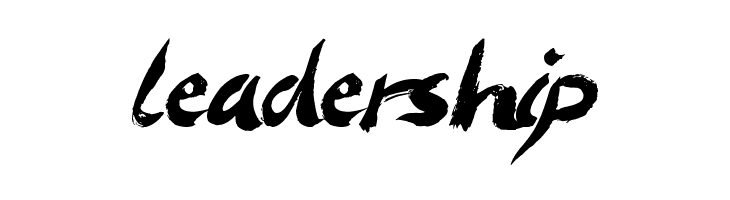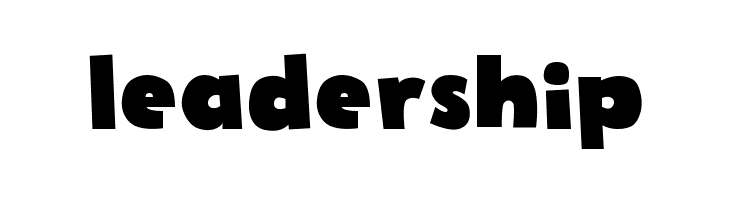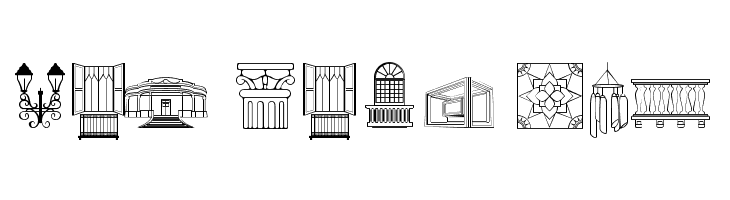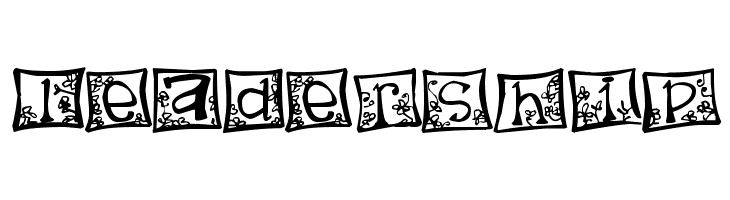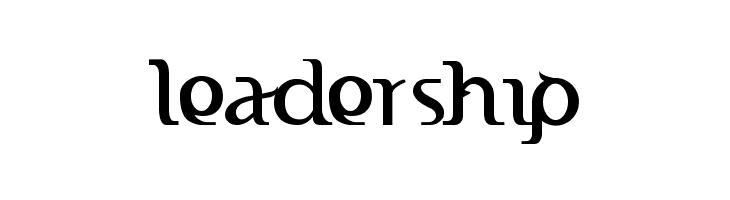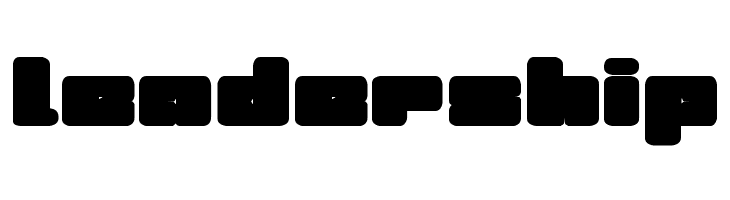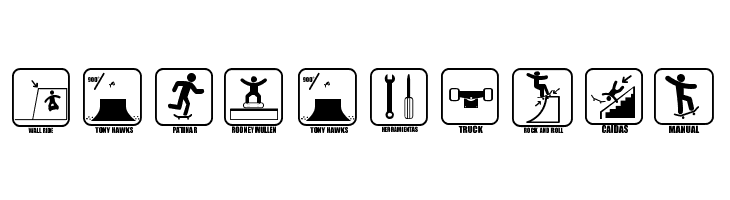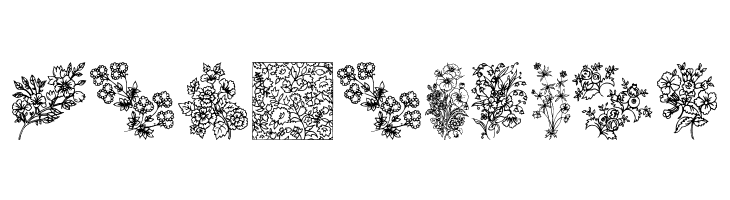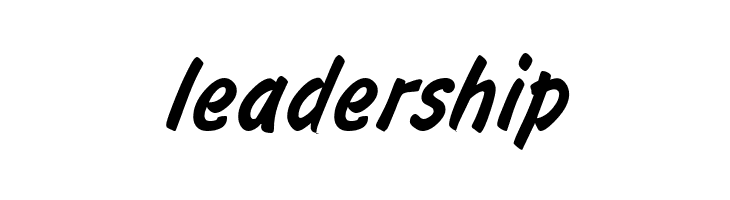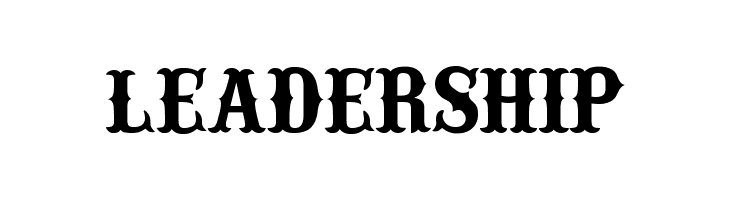
A bold, playful font with chunky, uneven letterforms and a whimsical style.
A bold, playful handwritten font with rounded strokes and a dynamic slant.
Whimsical icon-based font with ice lolly illustrations for each character.
BMX and cycling-themed pictogram dingbat font.
A classic serif font with elegant strokes and traditional flair.
A collection of bold skateboarding icons in square frames.
A bold, decorative typeface with a vintage Western style.
A bold, adventurous font with a Wild West aesthetic and strong, slab-like serifs.
Ornamental font with tribal and geometric motifs, ideal for decorative use.
A bold, angular font with a geometric and aggressive style.
A bold, rounded, and modern font with a playful and approachable style.
A playful, informal handwritten font with a casual and free-flowing style.
A playful, casual handwritten font with dynamic and irregular strokes.
A whimsical font blending serif and script styles with playful curves.
A playful, handwritten font with tall, narrow letters and a quirky style.
Highly decorative floral illustration font.
A bold, distressed font with a grungy, cracked texture and jagged edges.
A bold, futuristic font with geometric and angular design.
A bold, distressed font with a futuristic, glitch-like appearance.
A bold, jagged font with an aggressive, dynamic style.
An ornate, decorative font with intricate, artistic frames around each letter.
A bone-inspired, eerie font with sharp, elongated strokes.